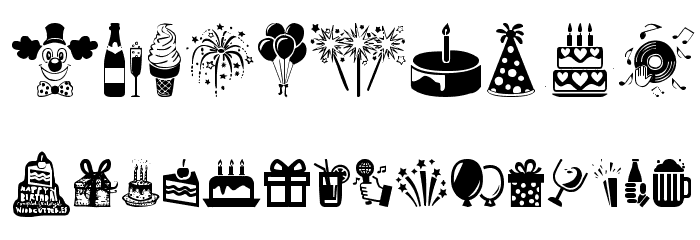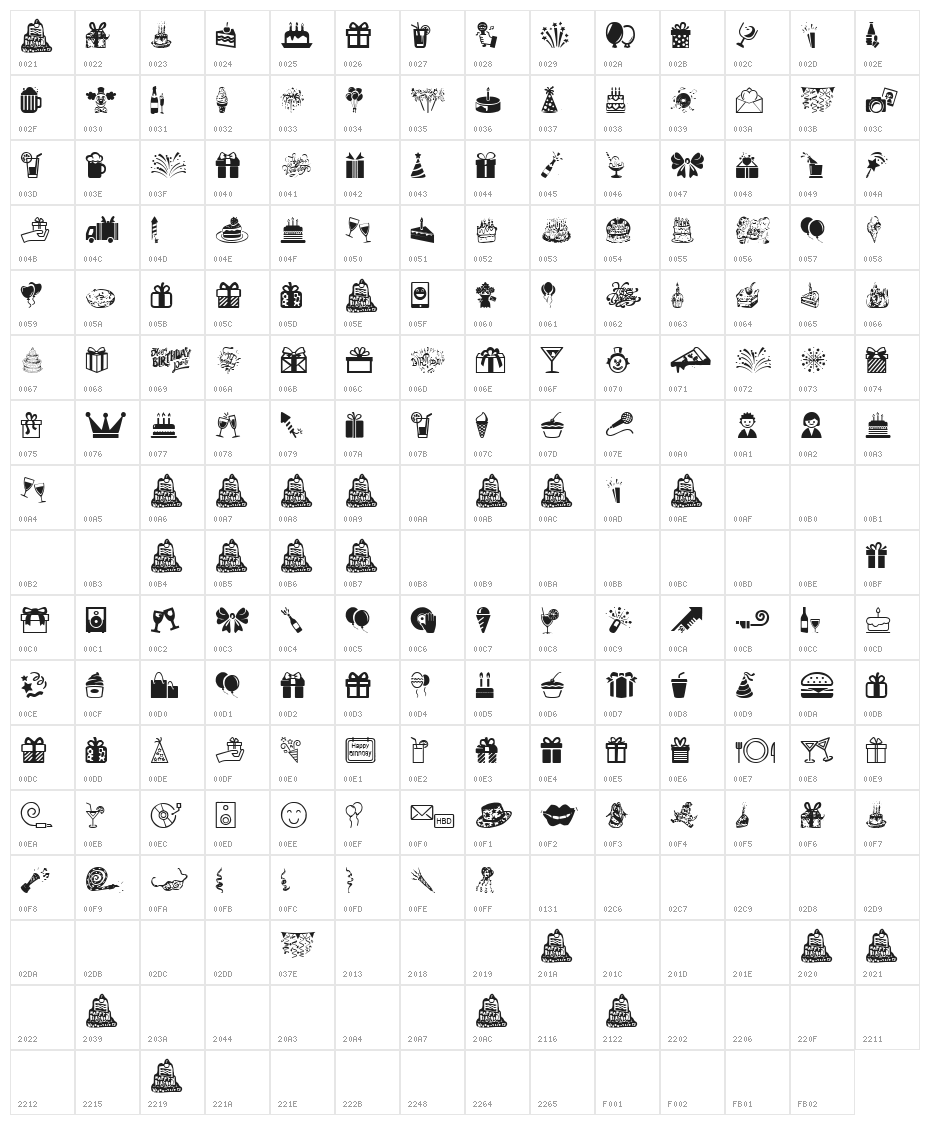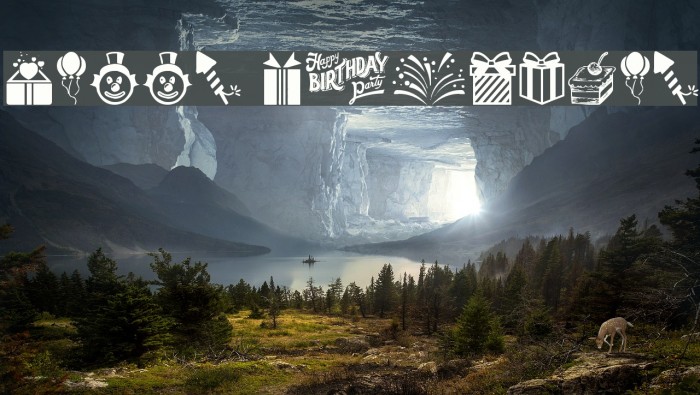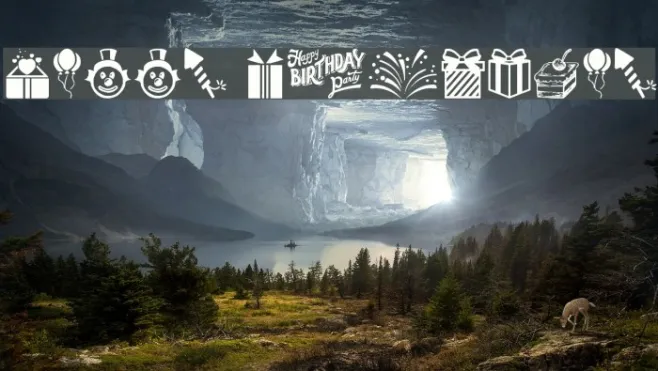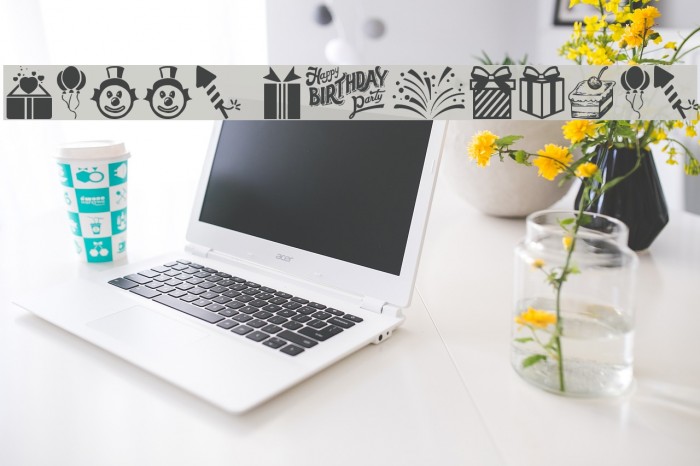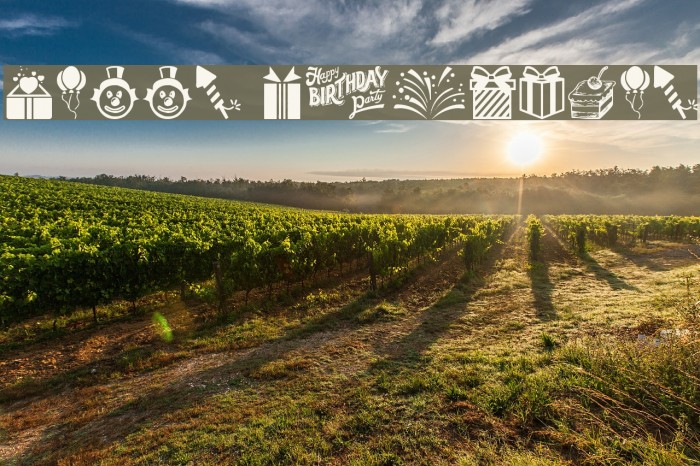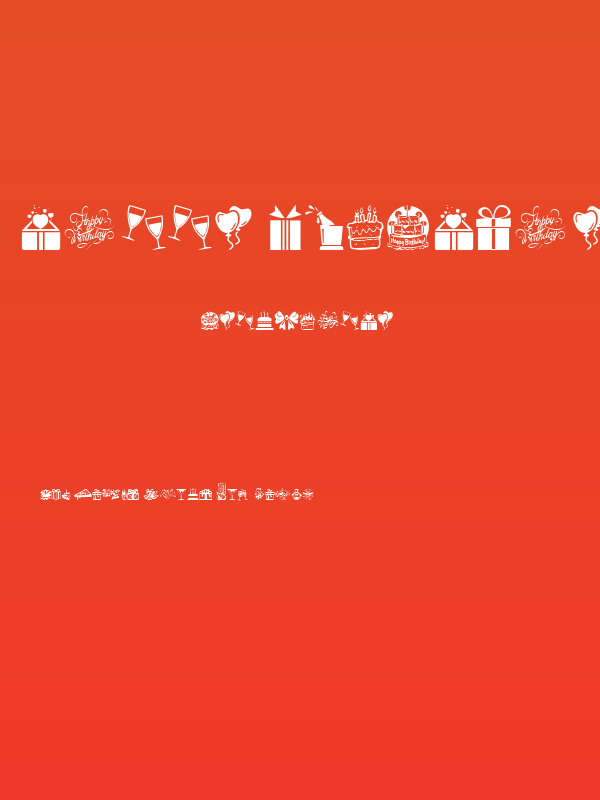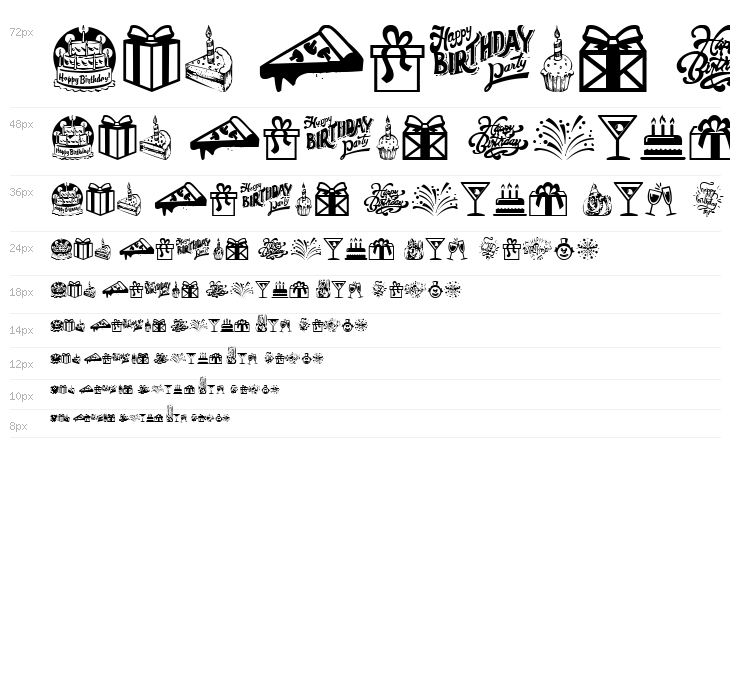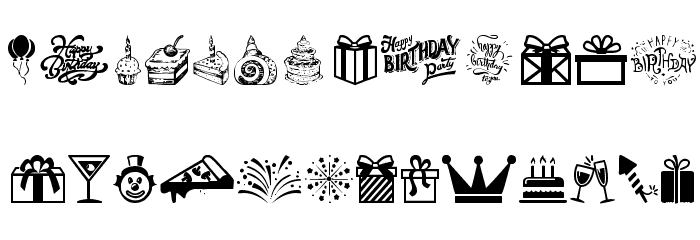
Happy Birthday Font
Happy Birthday Description
A decorative dingbat font featuring a variety of birthday-themed icons such as cakes, presents, balloons, party hats, drinks, and celebratory text in playful and festive styles. The icons are bold, high-contrast, and designed for visual impact, with a mix of solid fills and outlined details.
| Overall Style | Decorative, Playful, Festive |
| Use Case | Icons, Decorative elements, Themed graphics |
| Proposed Projects | Greeting cards, party invitations, event flyers, scrapbooking, digital stickers, social media graphics. |